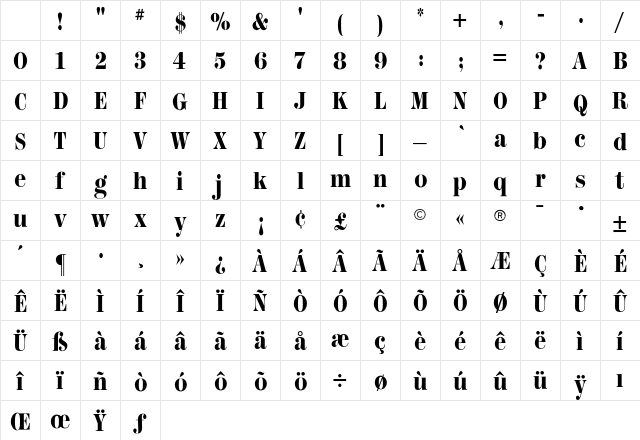
Complete Modern CG HeavyCondensed Regular glyph index. Displaying only characters natively supported by Modern CG HeavyCondensed Regular font.
Modern CG HeavyCondensed is a composed and adaptable typeface that performs quietly and consistently across a wide range of design contexts. Its narrow stance lets it pack a punch even in space-constrained designs.